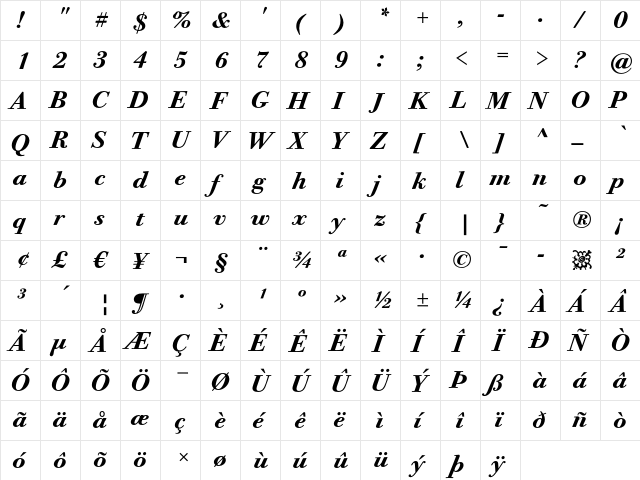
Bodoni Twelve ITC Bold Italic Font Preview
Design Context for Bodoni Twelve ITC Typeface
Bodoni Twelve ITC offers clean, dependable letterforms without strong stylistic allegiance, making it a practical choice for designers who need flexibility. The dynamic lean of this cut emphasises speed and emphasis in any layout. Its bold stroke weight gives it real presence on the page.
Pro Tip: Try Bodoni Twelve ITC for annotation and caption copy alongside an upright companion — the contrast in angle creates a dynamic but ordered typographic system.